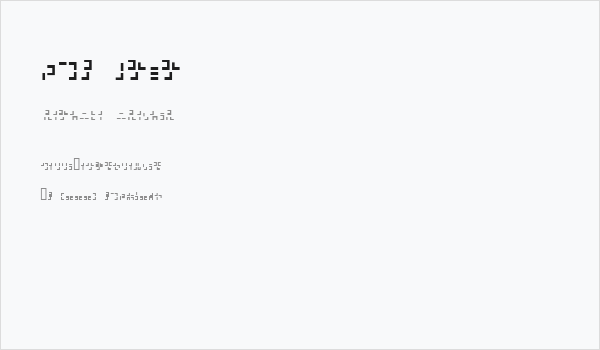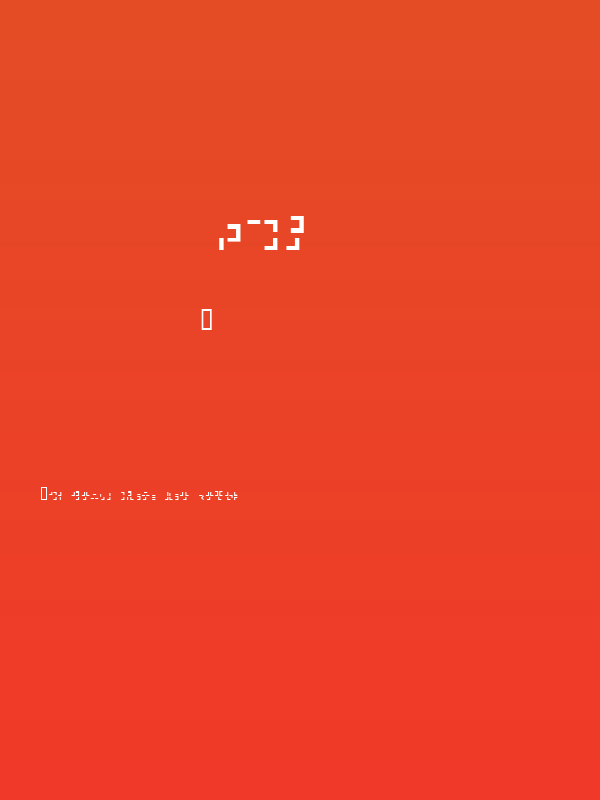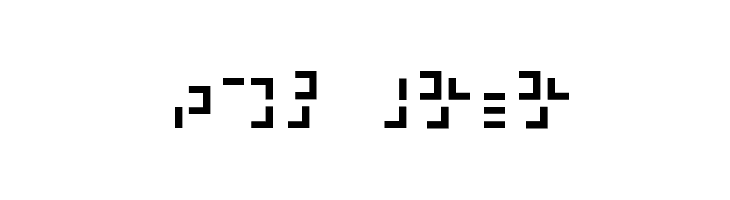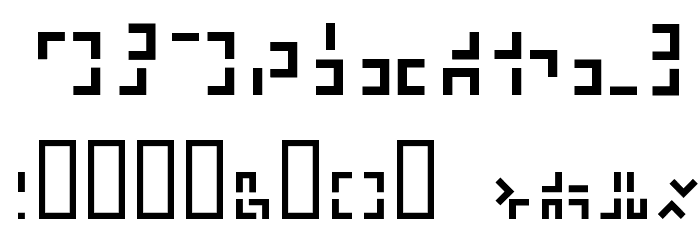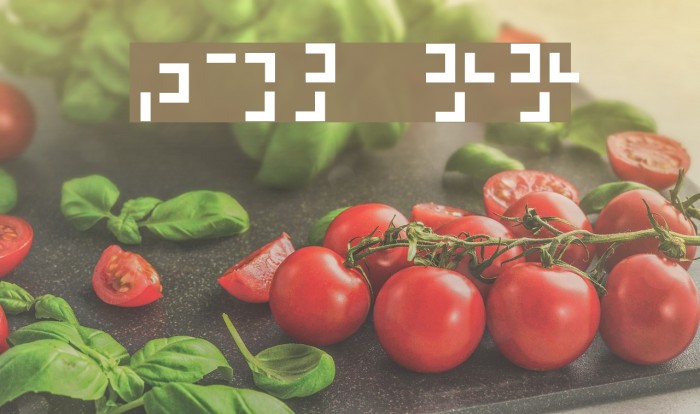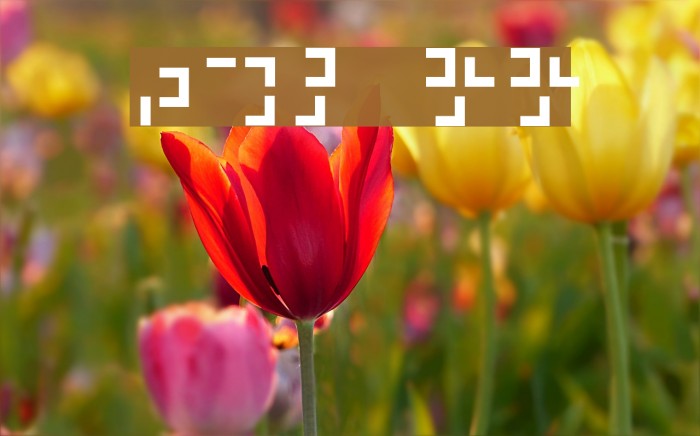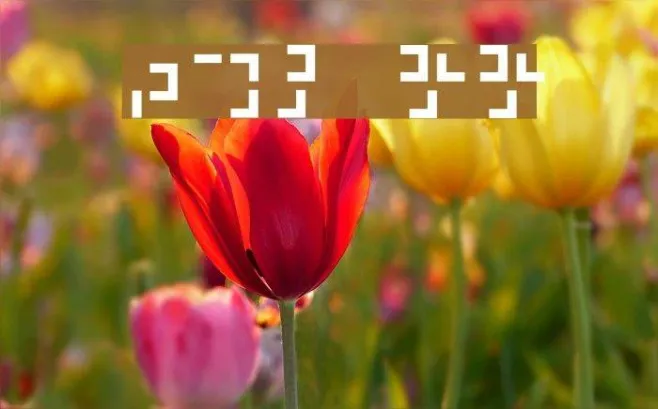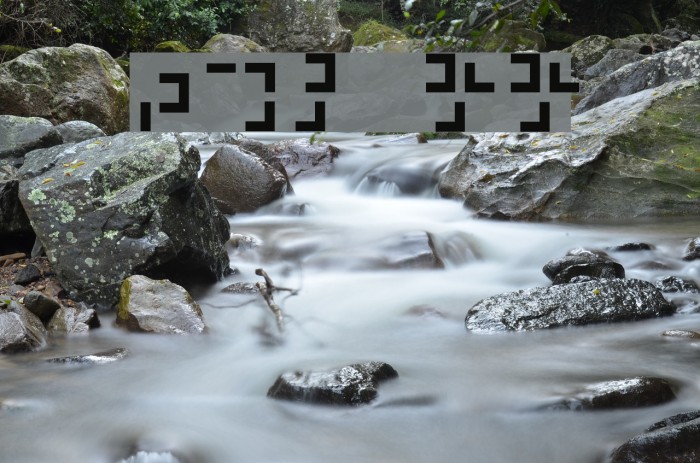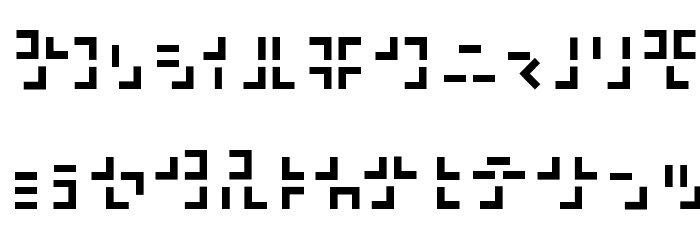
321 kana Font
321 kana Description
This font features a highly stylized, geometric design reminiscent of digital or pixelated text. Each character is composed of bold, block-like shapes that create a futuristic and tech-inspired aesthetic. The uniformity and angularity of the letters give it a distinct, modern look, making it suitable for digital displays or themes related to technology and innovation. The characters are evenly spaced, maintaining a consistent and structured appearance across all letters and symbols.